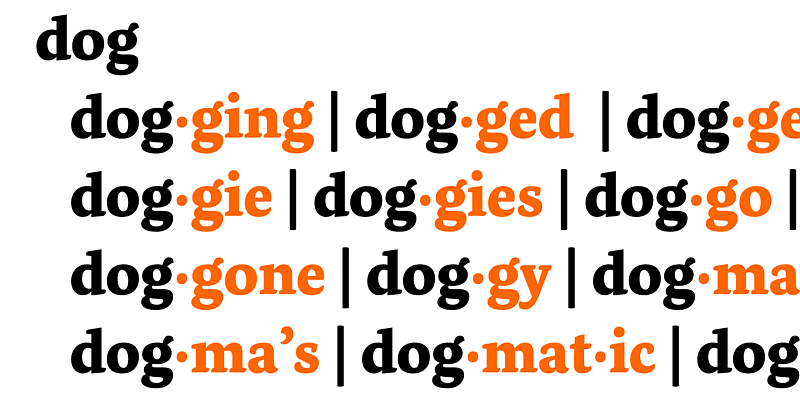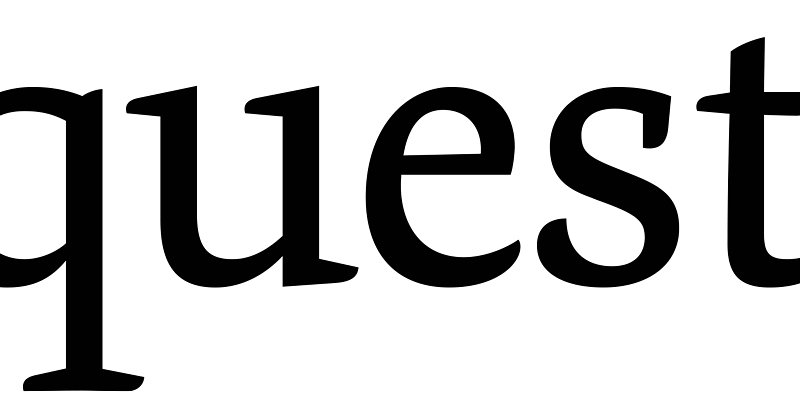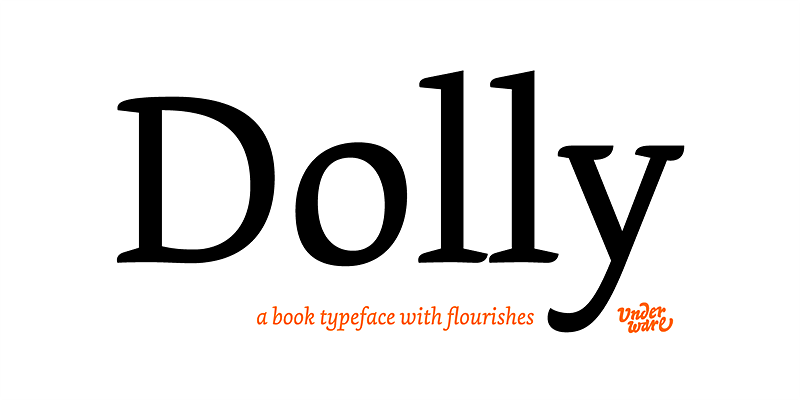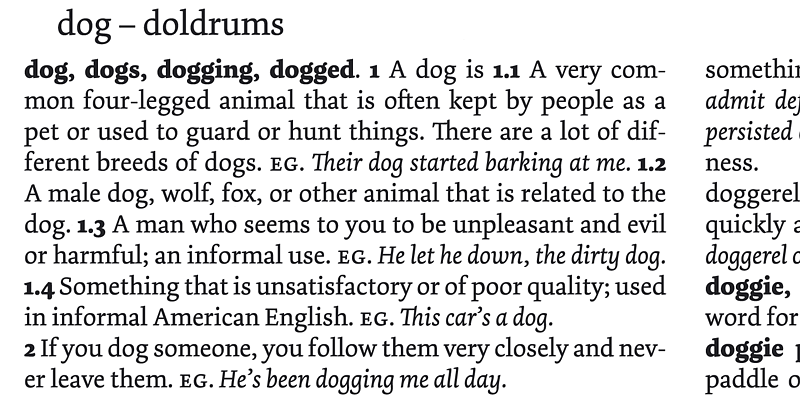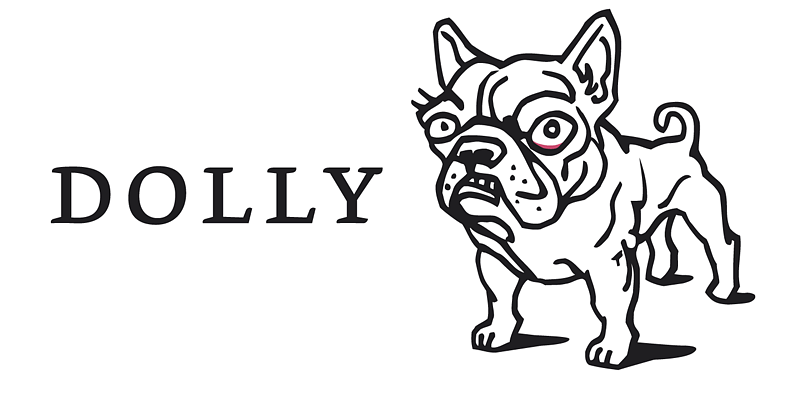
Dolly is a book typeface with flourishes. The family consists of four fonts, which provide a healthy palette for solving most problems within book typography.